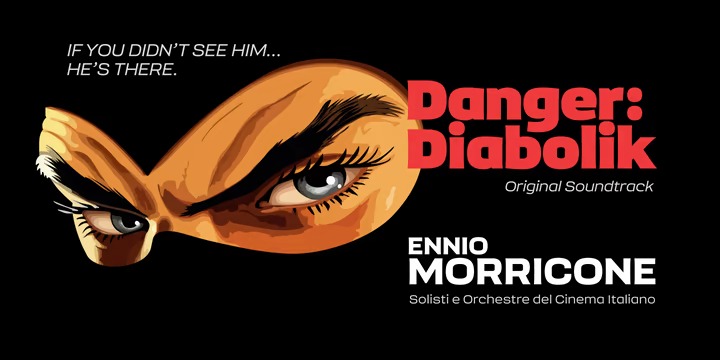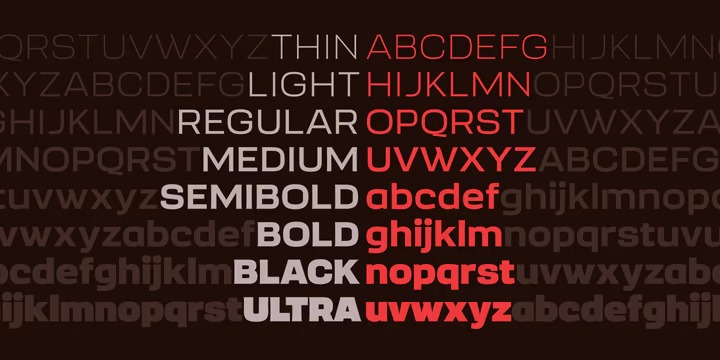
Sqwared Font Family
Sqwared Sans Serif Font
It’s a condensed display based on an early 1900 sans-serifs and gothic faces and it has 9 weights including italic. Sqwared benefits from large, open counters and a generous x-height that aids clarity and legibility, while a wide footprint gives these fonts a degree of stature and an air of confidence. Each character was drawn while immersed in a late sixties/early seventies vibe, but there’s no reason why Sqwared can’t be used for your contemporary designs.
There are 16 fonts altogether, ranging from Thin to Ultra weights in both roman and italic. It has a Latin character set that covers all Latin European languages.
Sqwared will dazzle in headlines, add flair and distinction to your logo designs, bring flamboyance to your branding material, and your body text will most definitely be unique!